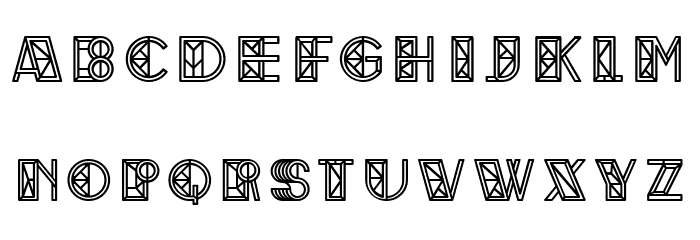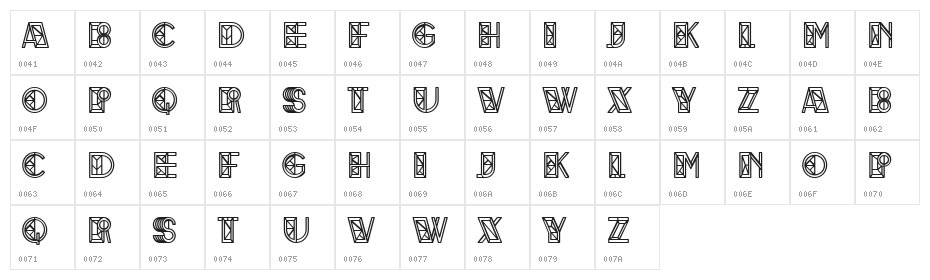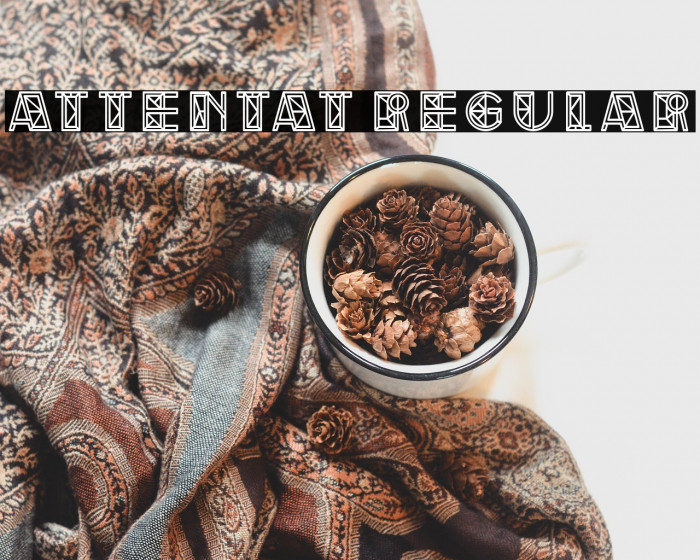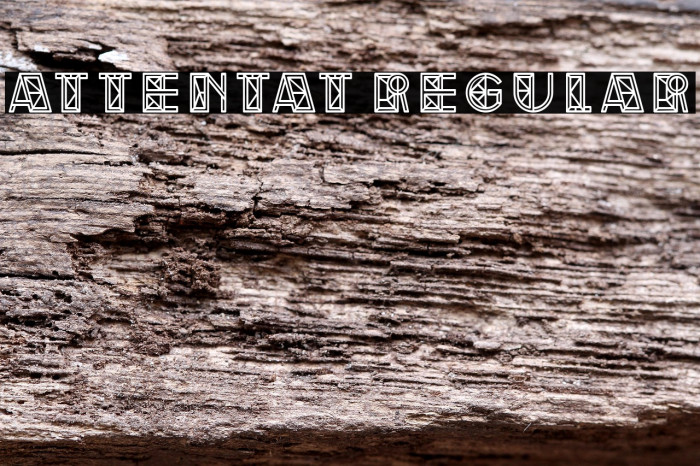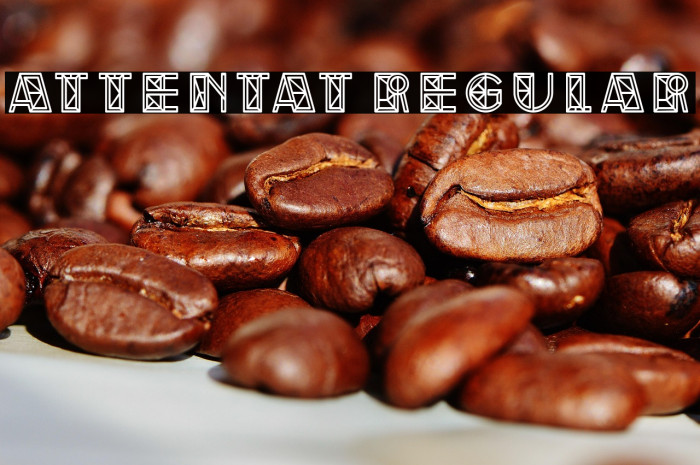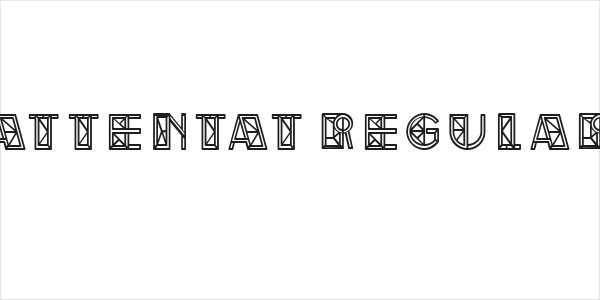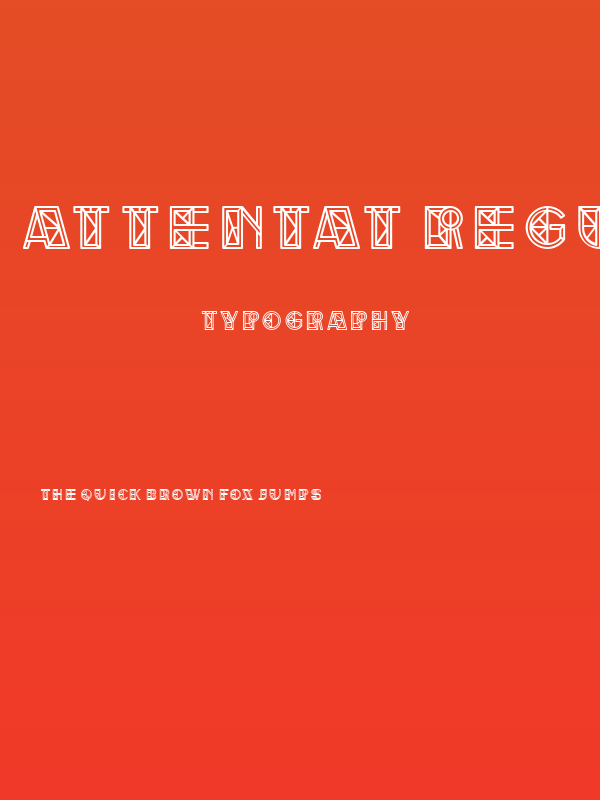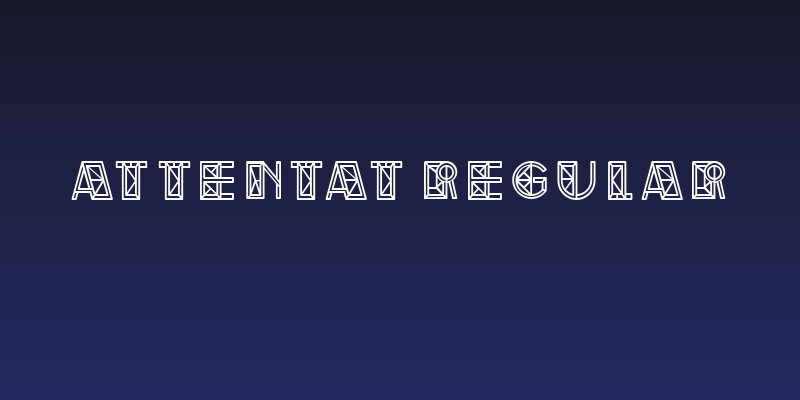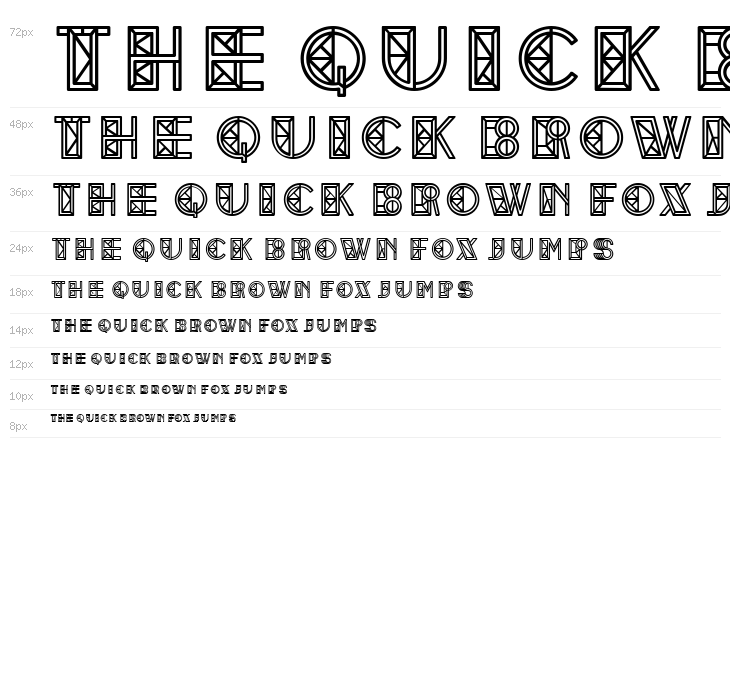
Attentat Regular Font
Attentat Regular Description
This font features a unique geometric design with intricate patterns within each letterform, creating a visually striking appearance. The uppercase letters are composed of bold lines and shapes, giving them a modern and artistic flair. The font's structure is consistent, with each character maintaining a balance between complexity and readability. The use of negative space within the letters adds to its distinctiveness, making it ideal for creative and decorative purposes. The overall design is both contemporary and playful, suitable for projects that require a standout typographic element.
| Proposed Projects | Ideal for branding, posters, album covers, and any project needing a creative and eye-catching typeface. |